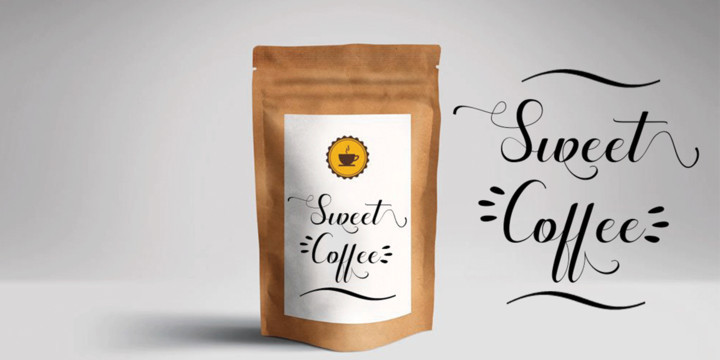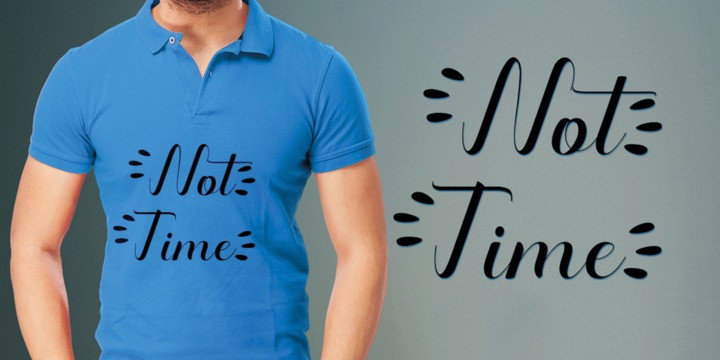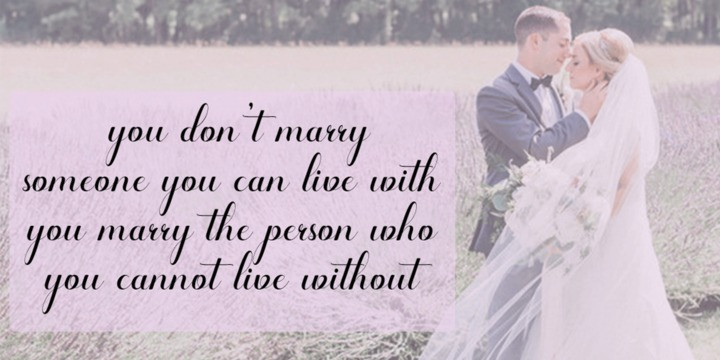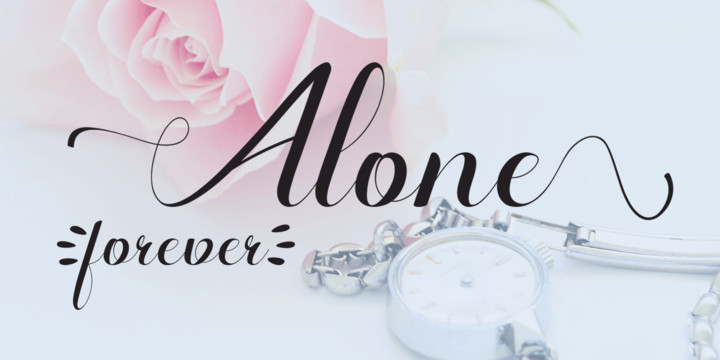
Alone Forever Font Family
Alone Forever script is a new and fresh modern font built with handmade calligraphy, decorative characters and dancing lineage! Great for invitations like greeting cards, branding material, business cards, quotes, posters, and more!
Alone forever Script comes with 612 glyphs. Alternate characters are divided into several Open Type features such as Swash, Stylistic Sets, Stylistic Alternate, Contextual Alternate. Open Type features are accessible by using Open Type savvy programs such as Adobe Illustrator, Adobe InDesign, Adobe Photoshop Corel Draw X versions, and Microsoft Word. And this font has code PUA unicode (font with special code). So that all alternative characters can be easily accessed by craftsmen or